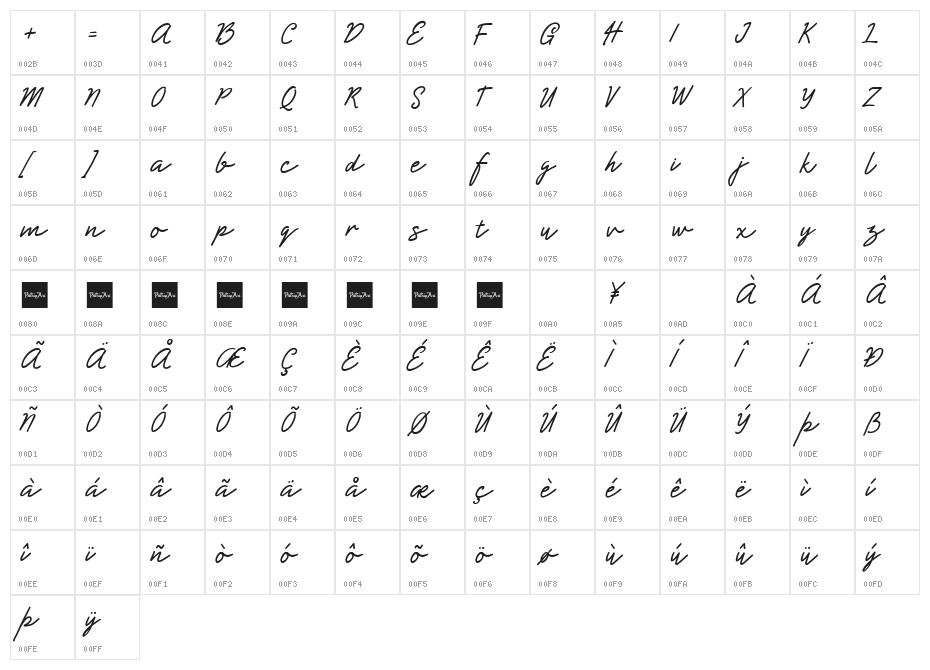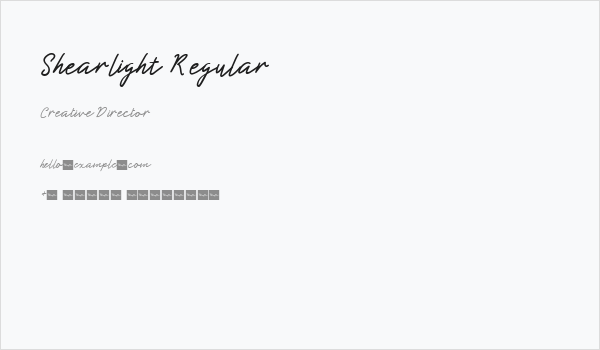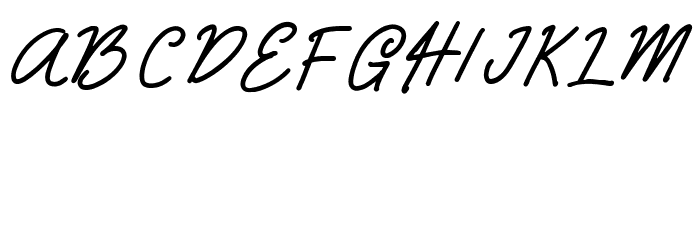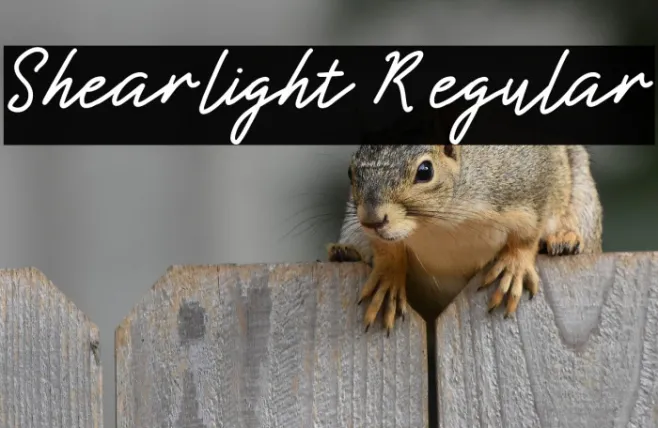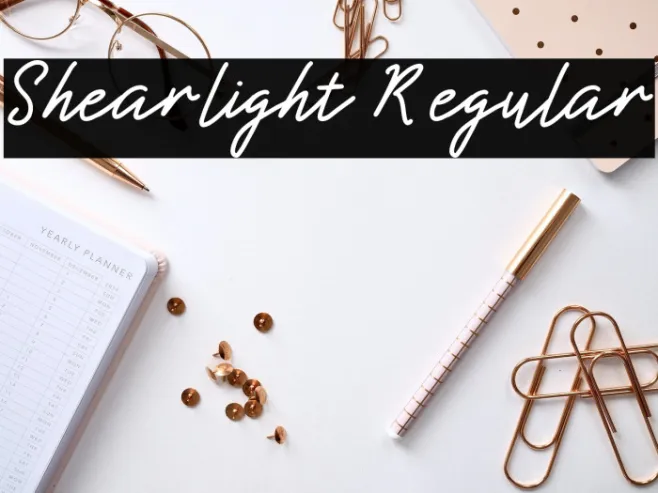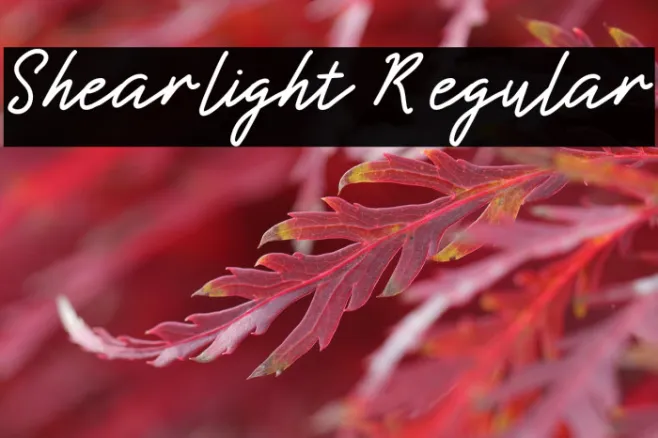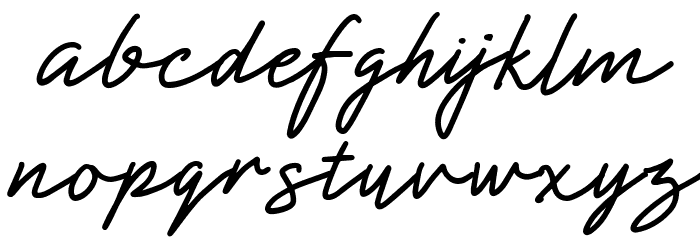
Shearlight Regular Font
Shearlight Regular Description
This font features a flowing, cursive style that mimics elegant handwriting. The characters are connected, creating a smooth and continuous line that enhances readability while maintaining a stylish appearance. The uppercase letters are slightly larger and more pronounced, adding a touch of sophistication. The lowercase letters are well-balanced, with consistent loops and curves that give the font a harmonious look. The numbers and special characters are designed to match the overall aesthetic, ensuring a cohesive appearance across all text. This font is perfect for projects that require a personal, yet professional touch.
| Proposed Projects | Ideal for wedding invitations, personal branding, greeting cards, and elegant logos. |